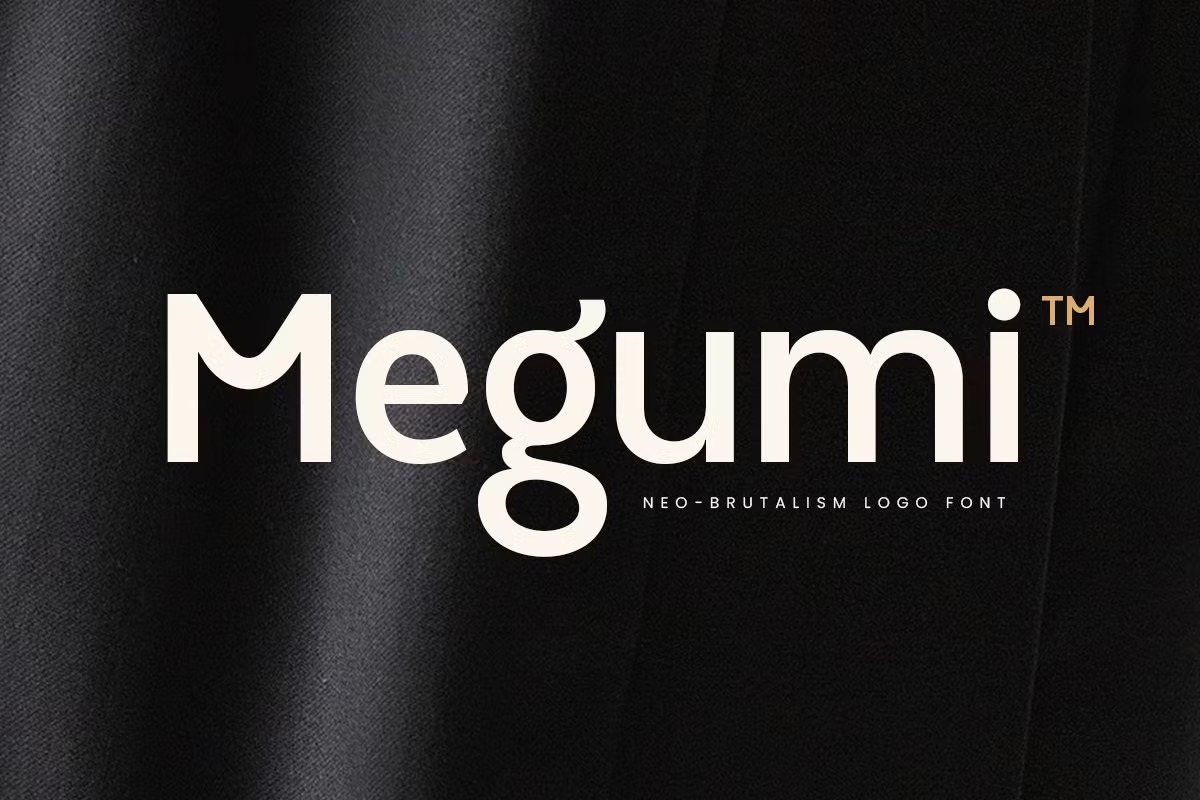
Megumi - Neo Brutalism Logo Font
Make your brand unforgettable with Megumi, a bold Neo-Brutalism font that commands attention and defines modern identity. Meet Megumi , where the raw power of Neo-Brutalism meets contemporary design sensibilities. This striking typeface transforms ordinary text into commanding visual statements, perfect for brands that refuse to blend into the background. Megumi Font Features: Bold Design: Powerful and commanding presence, engineered for high-impact logos and memorable branding Neo-Brutalism Sty...